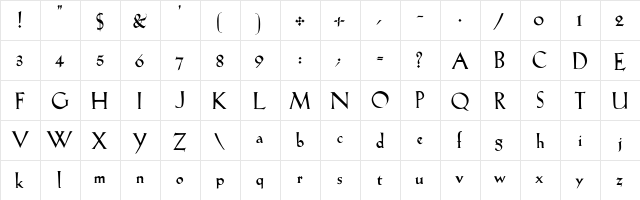
Lilith-Heavy Regular
Design Context for Lilith-Heavy Typeface
Lilith-Heavy offers clean, dependable letterforms without strong stylistic allegiance, making it a practical choice for designers who need flexibility.